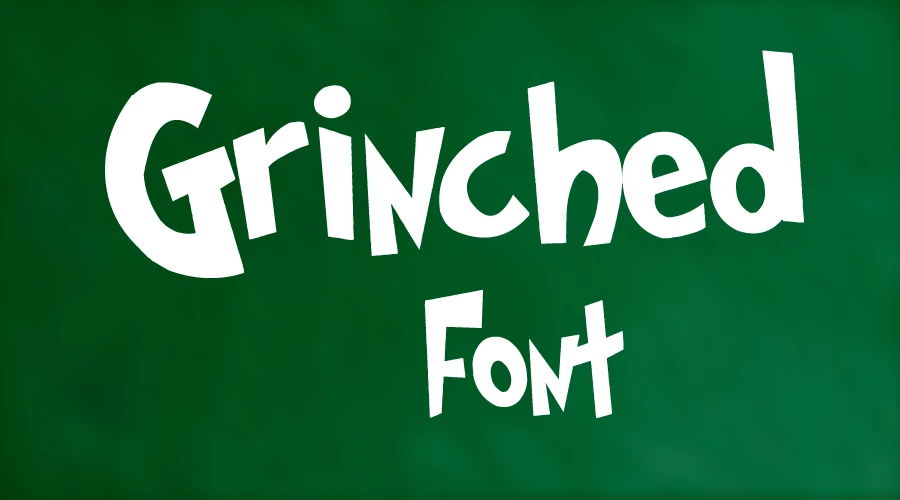
About Grinched Font
Grinched is a very popular font. If you are a fan of Dr. Seuss, then you will like this font. You can download the font for non-commercial purposes only. This font has one style: Grunched Regular. It is also known as the “Grinch” font, after The Grinch, an American computer-animated Christmas fantasy comedy film. The film is based on Dr. Seuss’ 1957 book, “How the Grinch Stole Christmas!” Also, Jim Carrey acted in a live-action feature-length film in 2000.
There is another updated version of this font called Grinched 2.0, a complete remake with full punctuation, kerning, and international characters.
We also found Grinched 3.0. Designed by Abu Hasnat and his team, this font is also based on the famous Grinched Cartoon. You can download it via the link below.